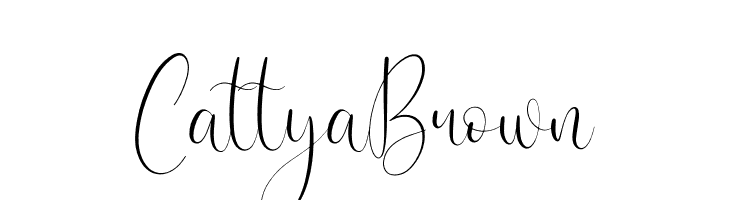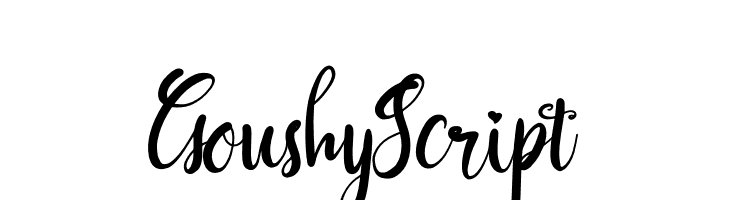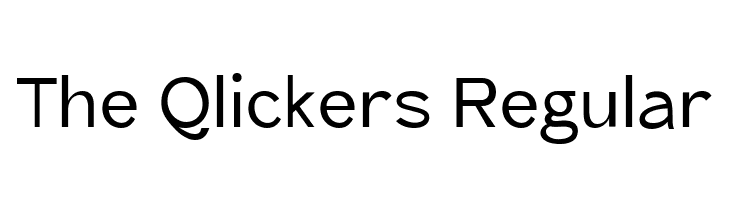
A lively and expressive script font with elegant swashes and interconnected letters.
A bold, handwritten-style font with smooth, rounded characters.
A playful, handwritten font with smooth, rounded edges and consistent strokes.
A playful, bold outline font with rounded edges and hollow interiors.
A bold, vintage-style font with elegant curves and strong presence.
A lively, flowing script font with elegant cursive letters and intricate loops.
A lively and elegant script font with smooth, flowing strokes.
A modern, futuristic font with sleek, curved characters.
A dynamic and elegant script font with flowing, cursive letterforms and high contrast.
A bold, italicized font with a modern and decorative style, featuring rounded, flowing characters.